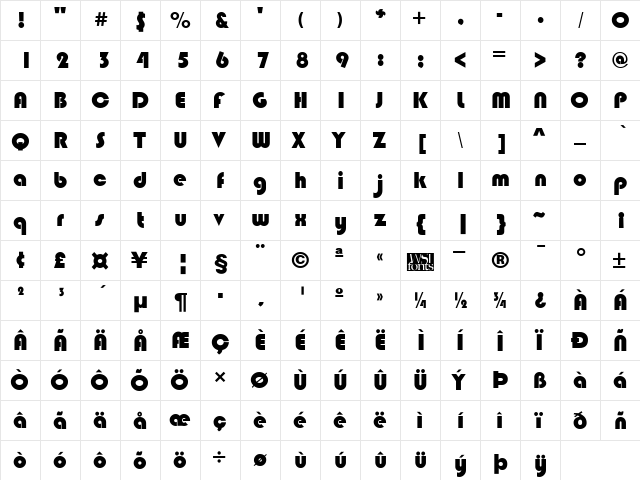
Blimpo Regular
Design Context for Blimpo Typeface
Blimpo takes a measured approach to typography — its balanced proportions and neutral character make it a reliable workhorse for both digital and print work.